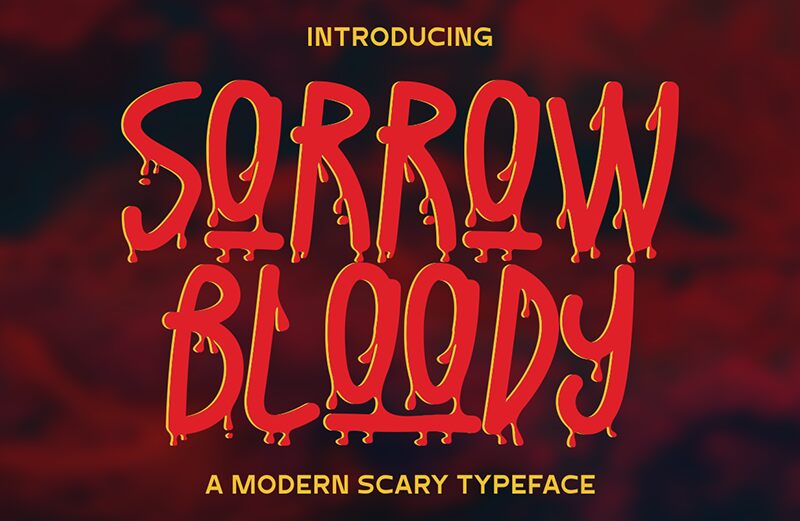
Sorrow Bloody font family is a free horror-inspired typeface by Gilang Ternadho with theatrical visual aspects. The 2 font styles showcase smooth dripping elements that in their combination create an immersive and intense experience. Dynamic and immersive, this font family is one with an eerie and unsettling nature.
Horror and thriller posters, SFX, stickers and gaming designs, and Halloween-themed projects can all be fun to create with Sorrow Bloody. And let’s not forget about movie and TV show titles, and covers for horror novels and stories that would appear flashing and intense.